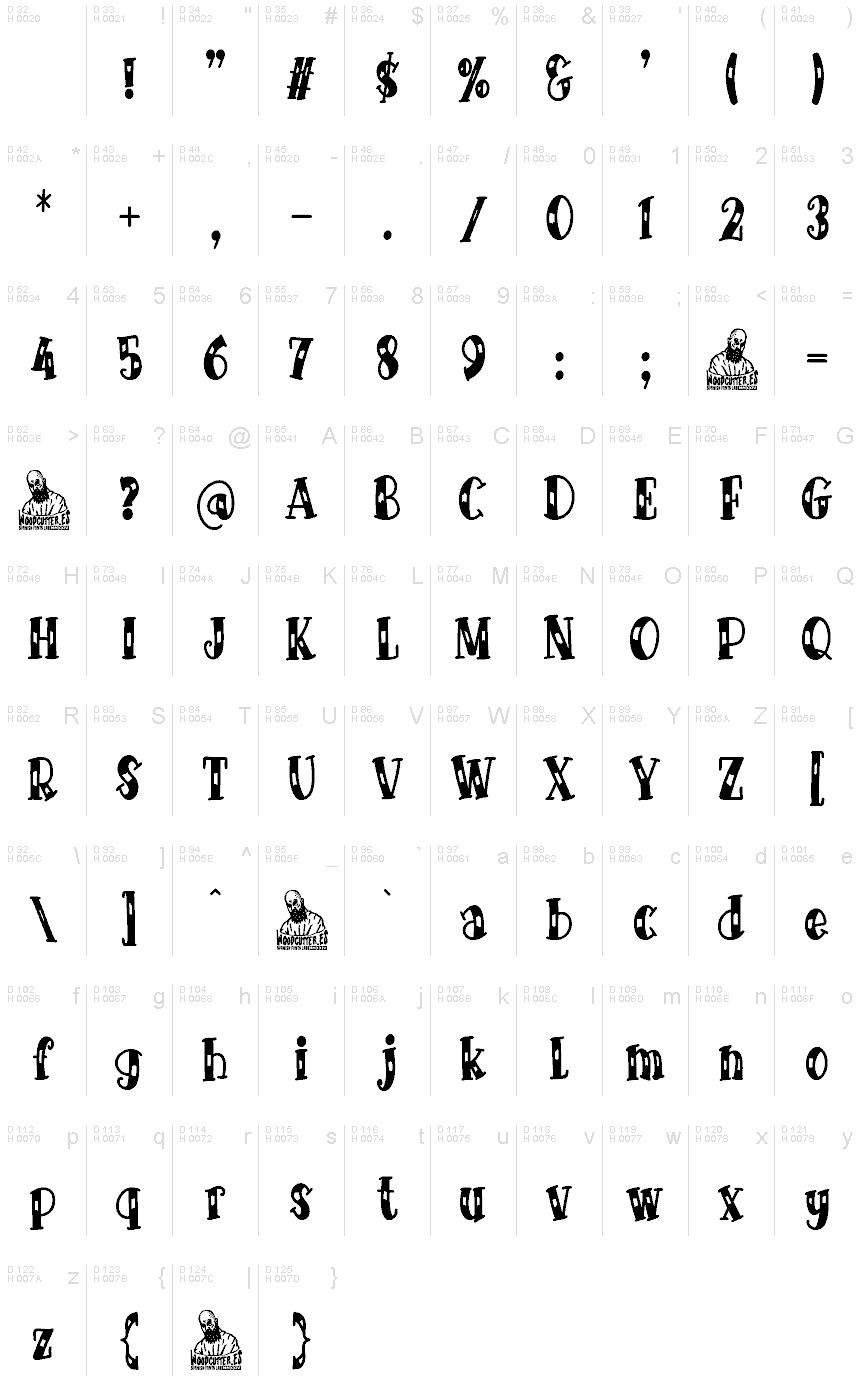
The First Tattoo
The First Tattoo font by Woodcutter is a bold, condensed display font that features the artistic flair and theatrical feel of decorative lettering. Its characters seem sketched with pens and feature clean vertical or horizontal inner lines, cleverly inspired by early tattoo styles. If you’re looking for originality and a heavily gorgeous typeface, this one should definitely make your short list.
A card game packaging design, album cover artworks, badges, tattoos (that’s what it was made for!), book covers, movie posters, banners, cartoon/anime graphics are some terrific application examples for this free display font. The author always offers generous licenses with their fonts.